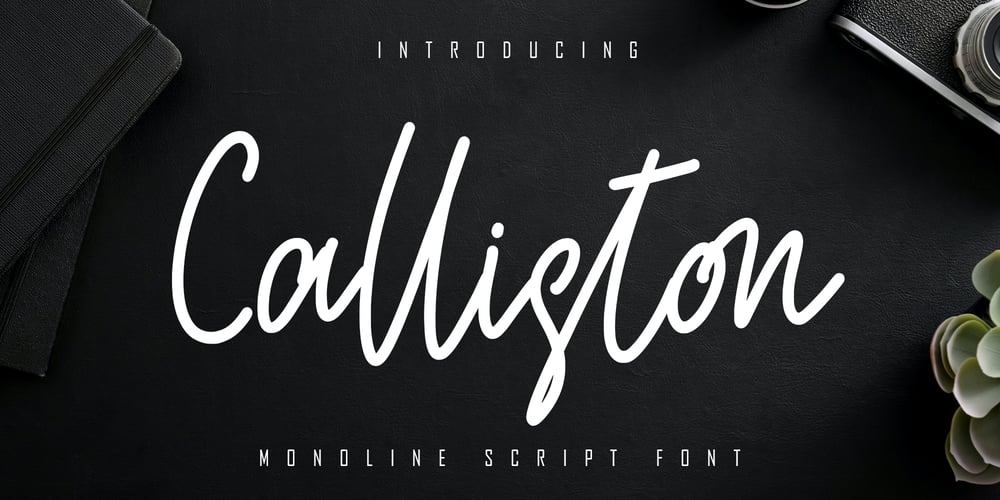
Calliston Font Family was designed by Irfan Mahmudin and published by Skiiller Studio. Calliston contains 1 styles and family package options. Calliston is a monoline type font combined with a script so it looks elegant, there are ligature features in it, suitable to support a variety of designs and your business